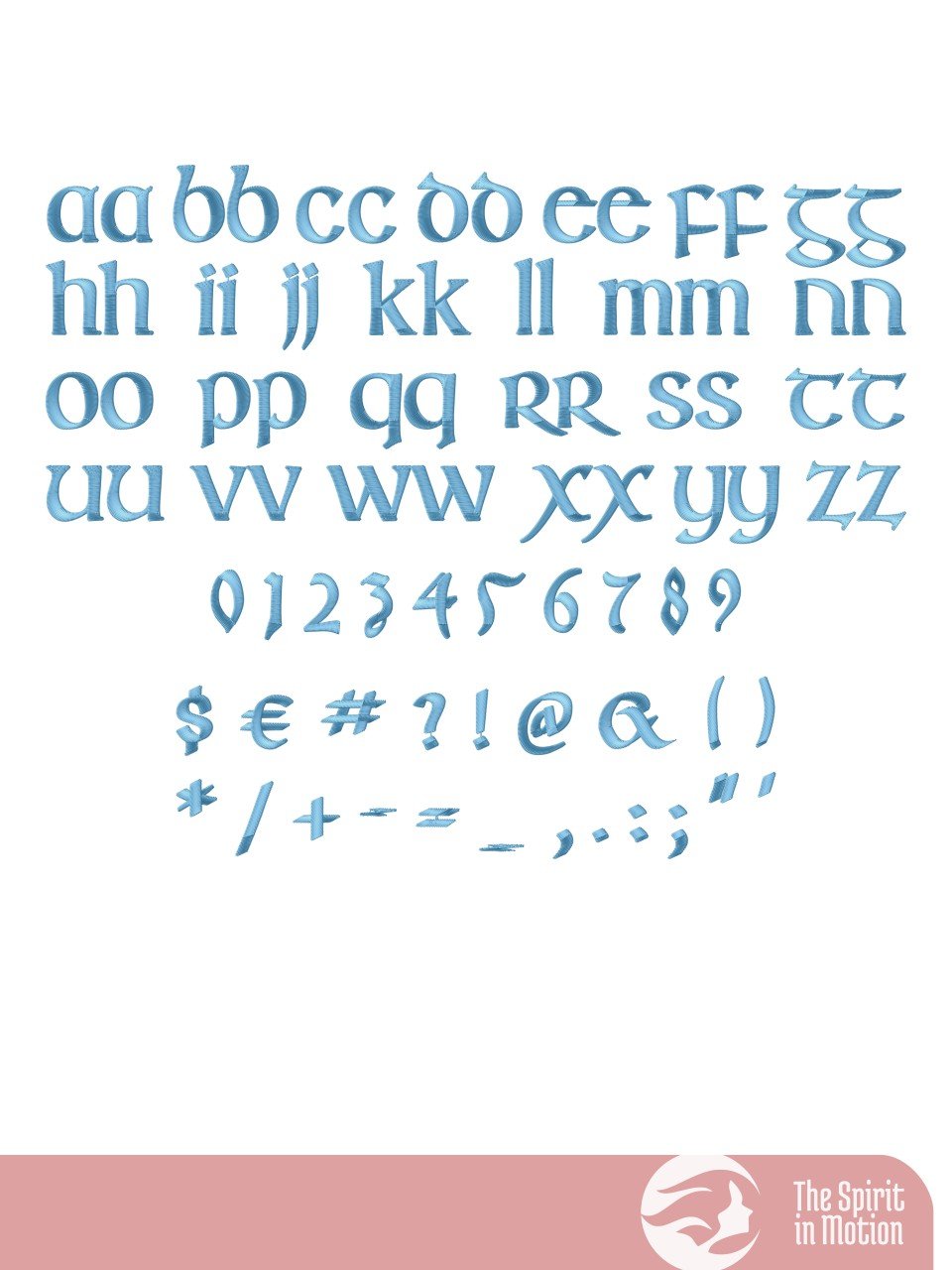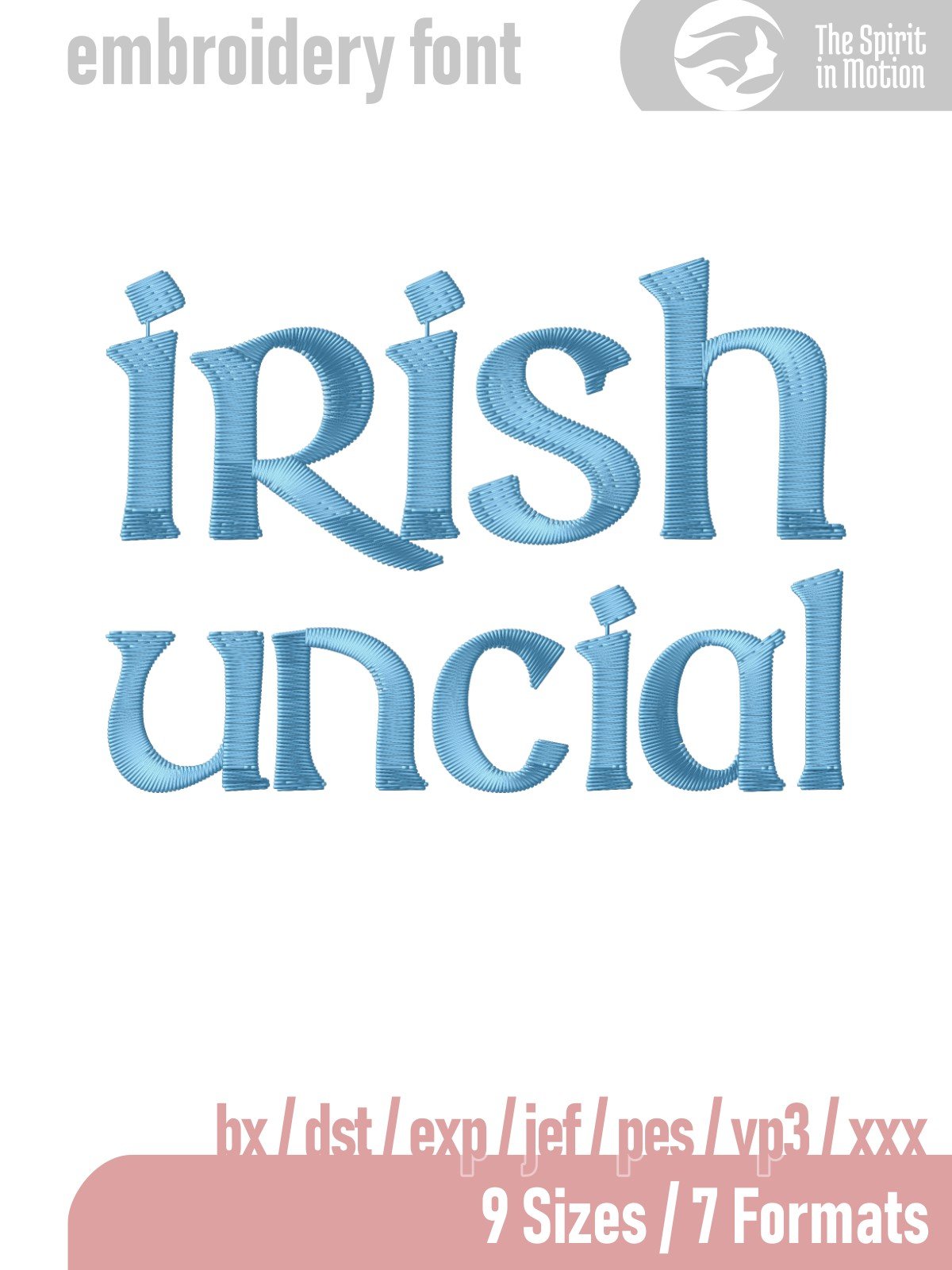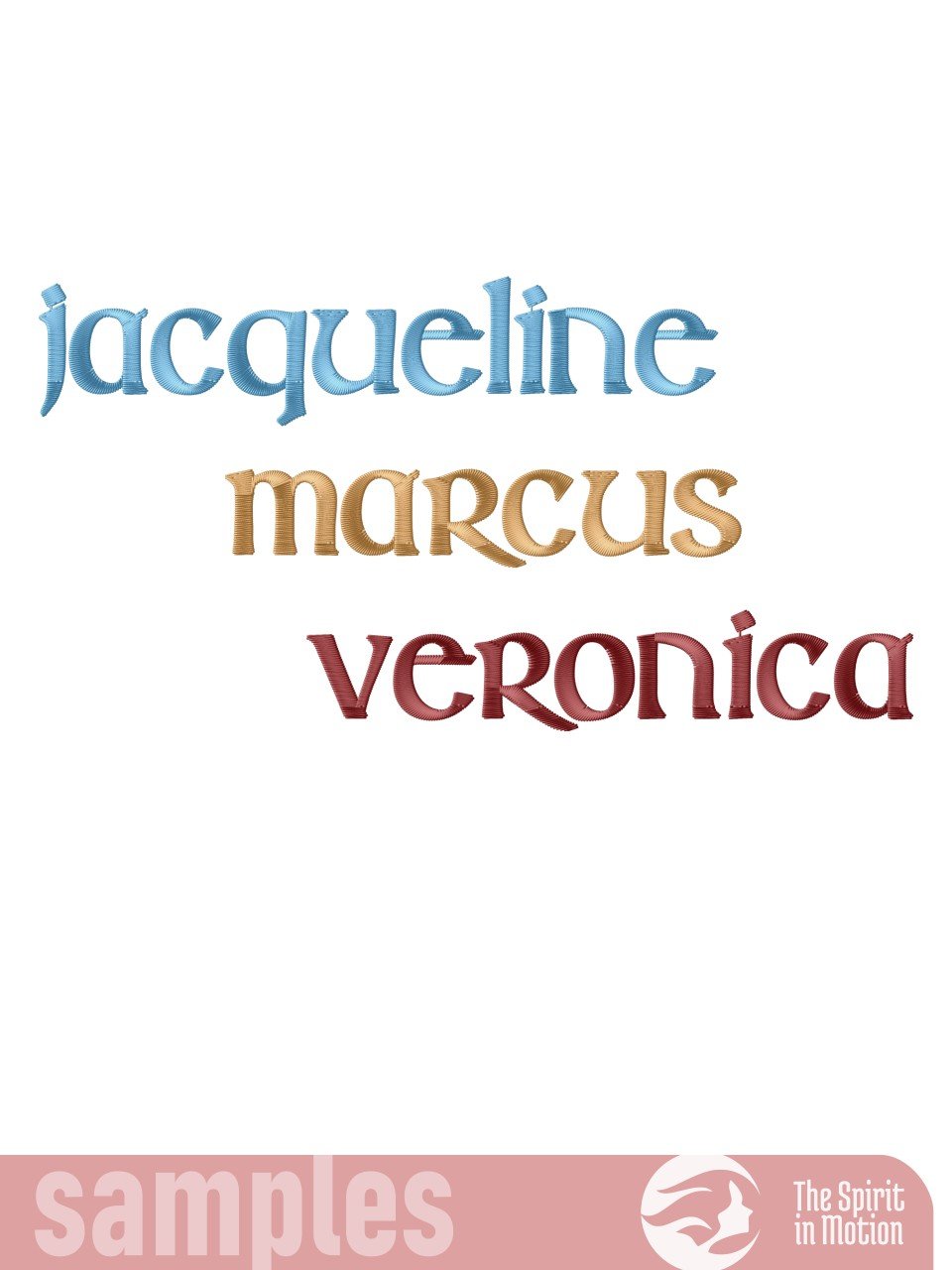
Irish Uncial Machine Embroidery Font | PES, BX, DST
This Irish Uncial embroidery font is inspired by traditional Celtic manuscripts and medieval lettering. Its bold, rounded strokes give a timeless and distinguished look, making it ideal for St. Patrick’s Day, weddings, monograms, church projects, and heritage-themed designs. A perfect way to add classic Irish style to any embroidery project.